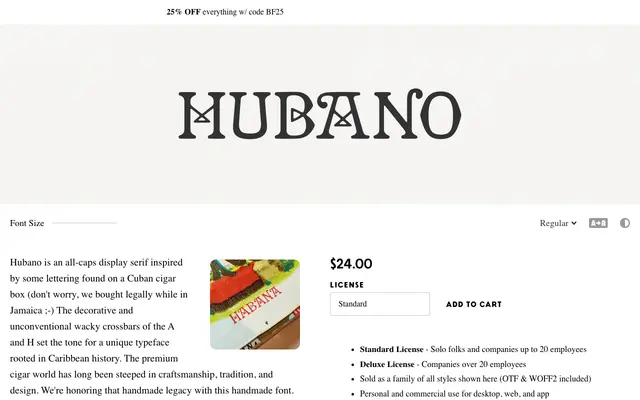
An all-caps display serif drawn from Cuban cigar box lettering, distinguished by unconventional zig-zag crossbars on the A and H.
Inspired by hand-lettering spotted on a cigar box, this typeface channels the craft tradition of Caribbean tobacco culture into two styles: a clean Regular and a Rough variant that mimics a hand-painted finish. The unconventional crossbars on A and H are the defining feature, with standard alternates provided for those who want something less conspicuous. Western Latin diacritics are included alongside a full set of numerals and punctuation.
An all-caps display serif with highly decorative, zig-zag crossbars on key letters, inspired by hand-lettered Cuban cigar box typography. The ornamental character and single-case design place it firmly in the decorative display category.